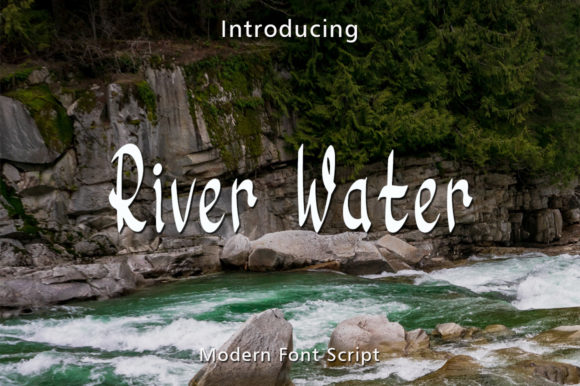
Immerse yourself in the captivating beauty of River Water Font, a script masterpiece that will transform your text website into a visual spectacle. Crafted with love by rangkaiaksara, this elegant handwritten font seamlessly blends timeless charm with a fresh, modern twist. Let your words dance gracefully across the screen, leaving a trail of sophistication and style in their wake.
With its unique and distinctive characters, River Water Font adds a touch of individuality to any project. Each letter flows effortlessly into the next, creating a visually pleasing rhythm that draws the reader's eye. Whether you're designing invitations, logos, headers, or social media graphics, this font will elevate your work to new heights.
Let your creativity flow freely as you explore the endless possibilities of River Water Font. Its versatility knows no bounds, making it the perfect choice for a wide range of projects. From elegant wedding invitations to eye-catching marketing materials, this font will effortlessly adapt to your vision and bring your ideas to life.
At River Water Font, we believe that every word deserves to be beautifully presented. Our font is meticulously designed to enhance the readability and clarity of your text, ensuring that your message is delivered with impact. Whether you're writing a heartfelt letter, crafting a persuasive blog post, or creating an informative article, River Water Font will elevate your words and leave a lasting impression.
Don't settle for ordinary fonts that blend into the background. Embrace the power of River Water Font and watch your text come alive. Its distinctive style will captivate your audience and leave them wanting more. Experience the difference that a truly remarkable font can make.